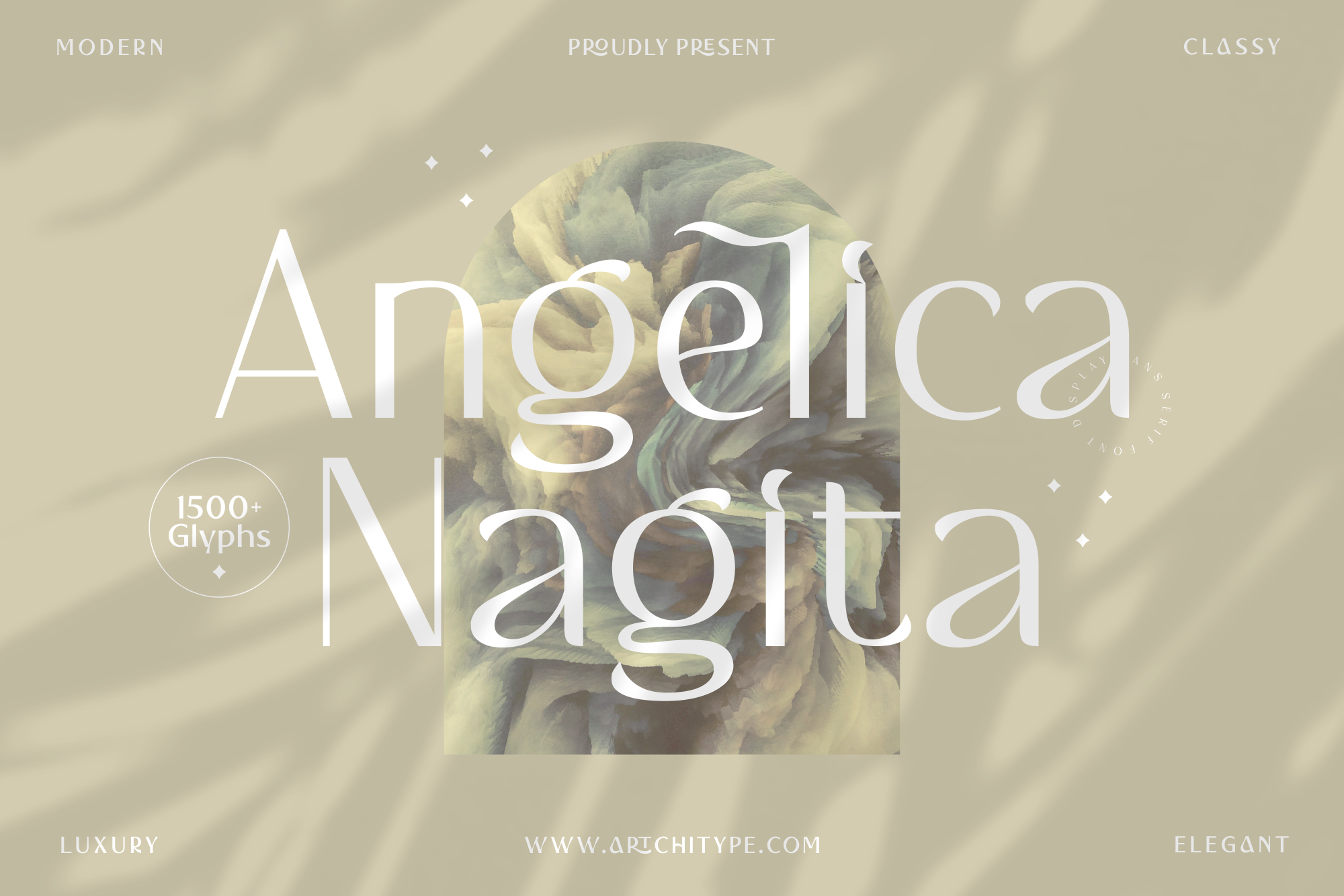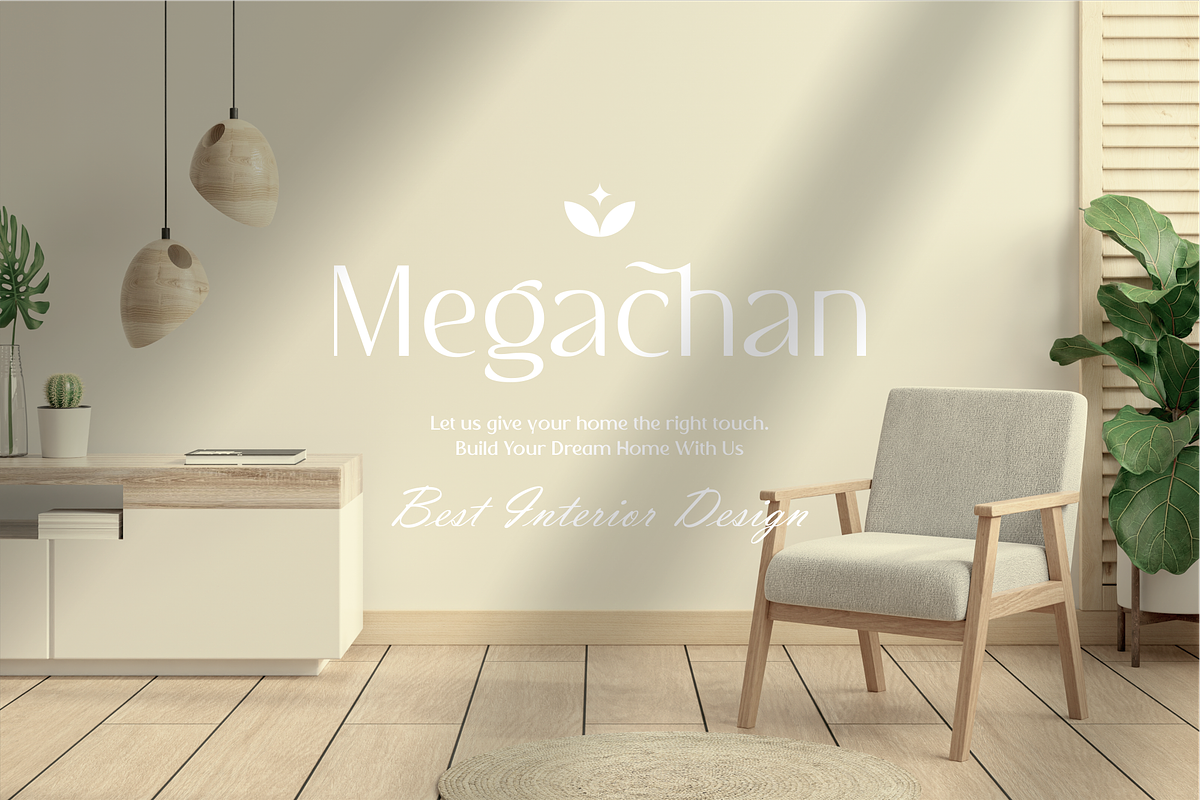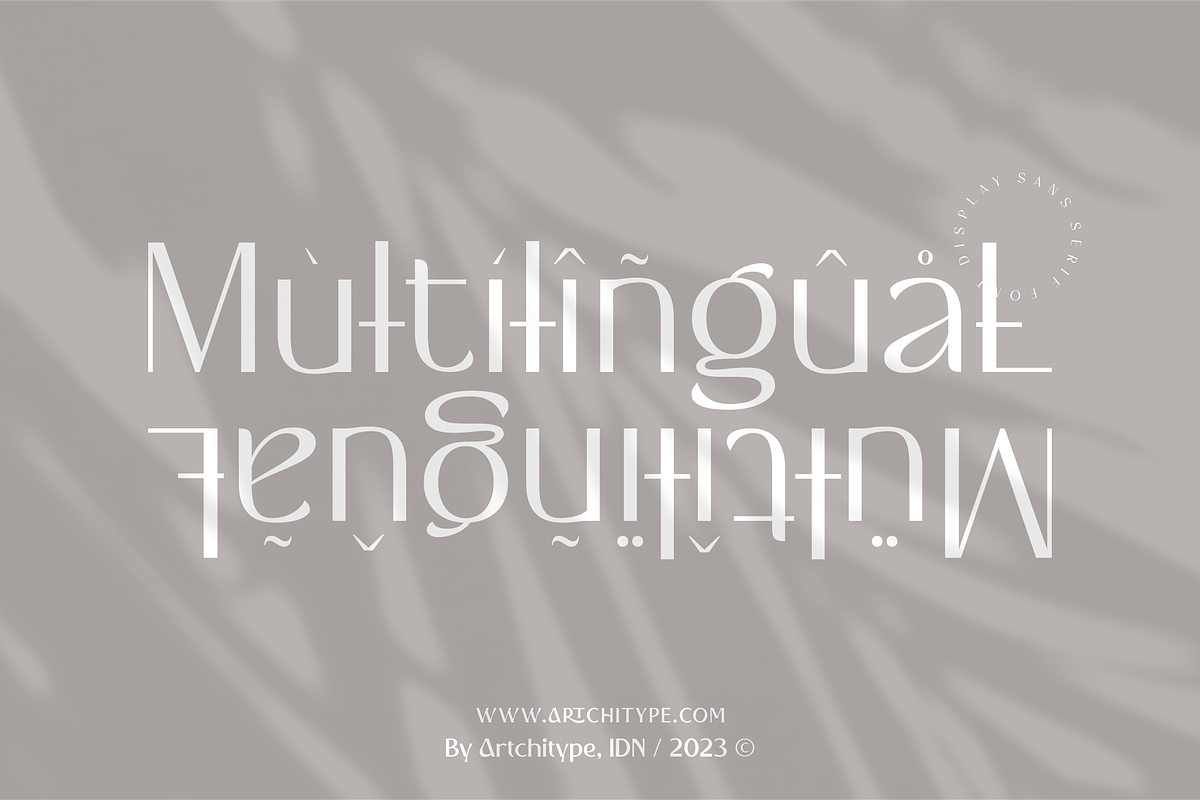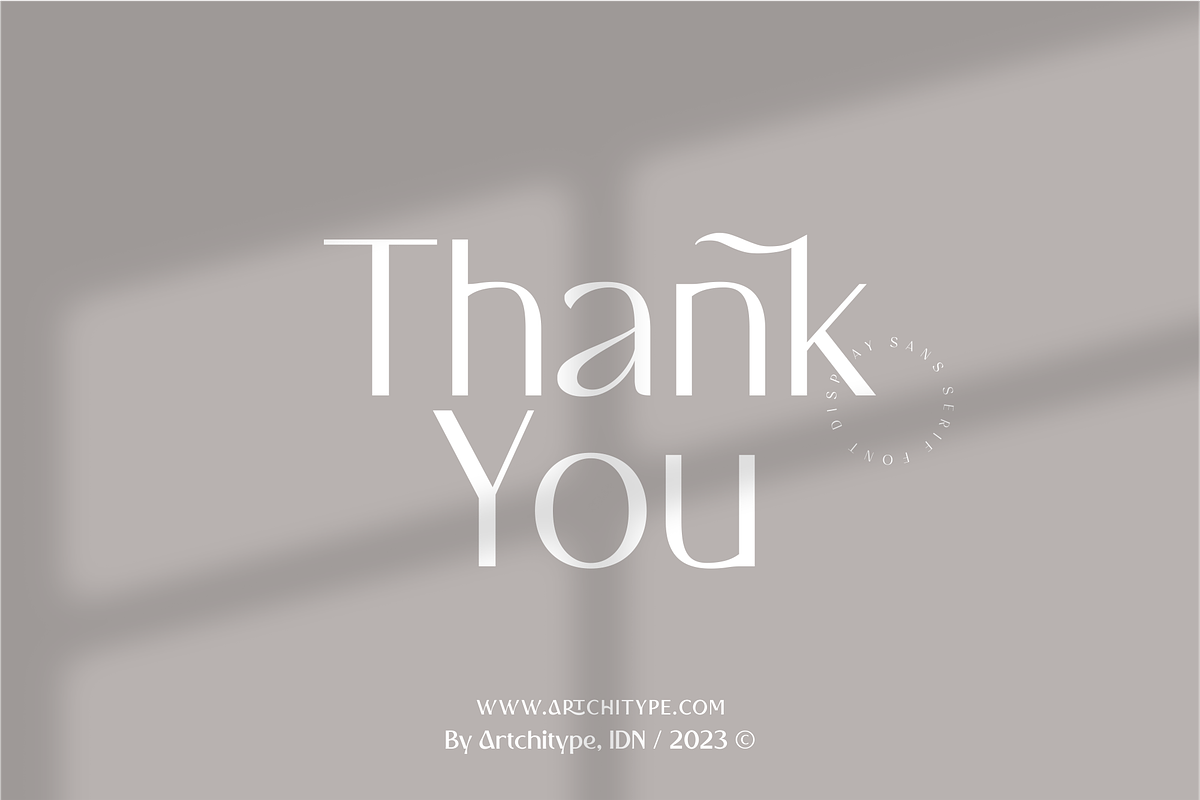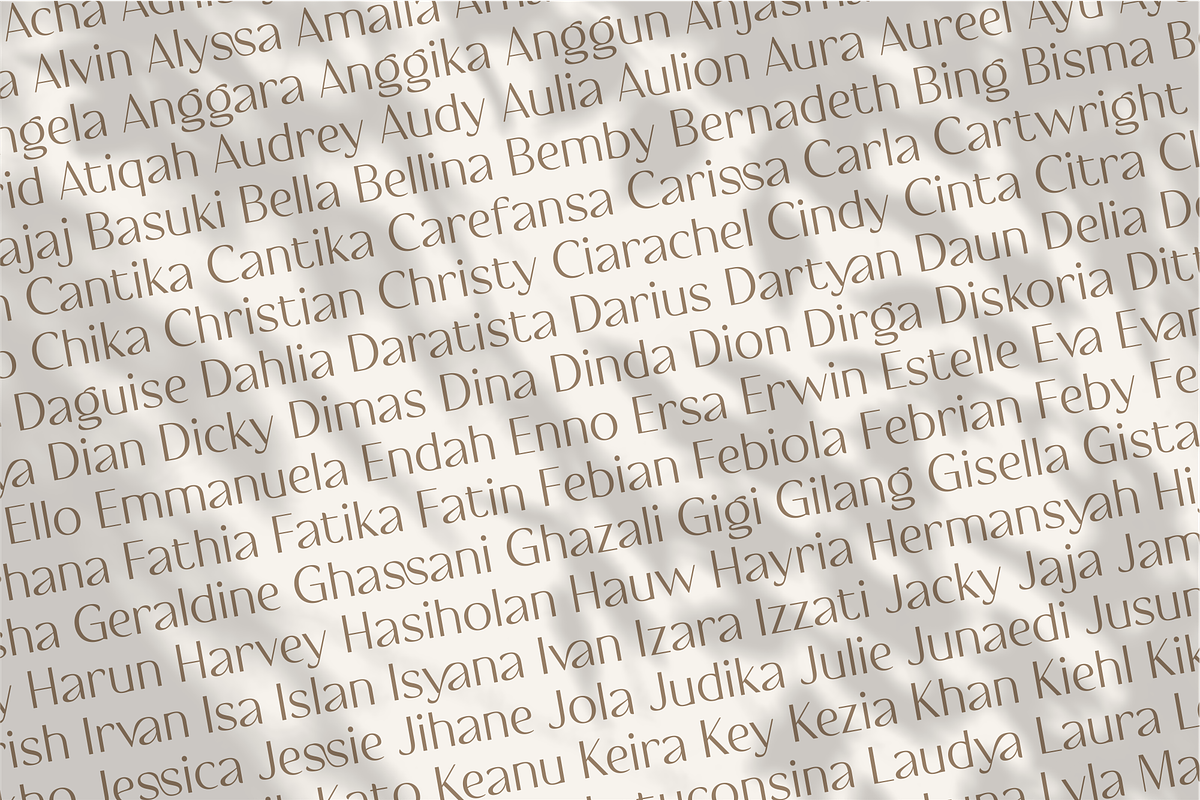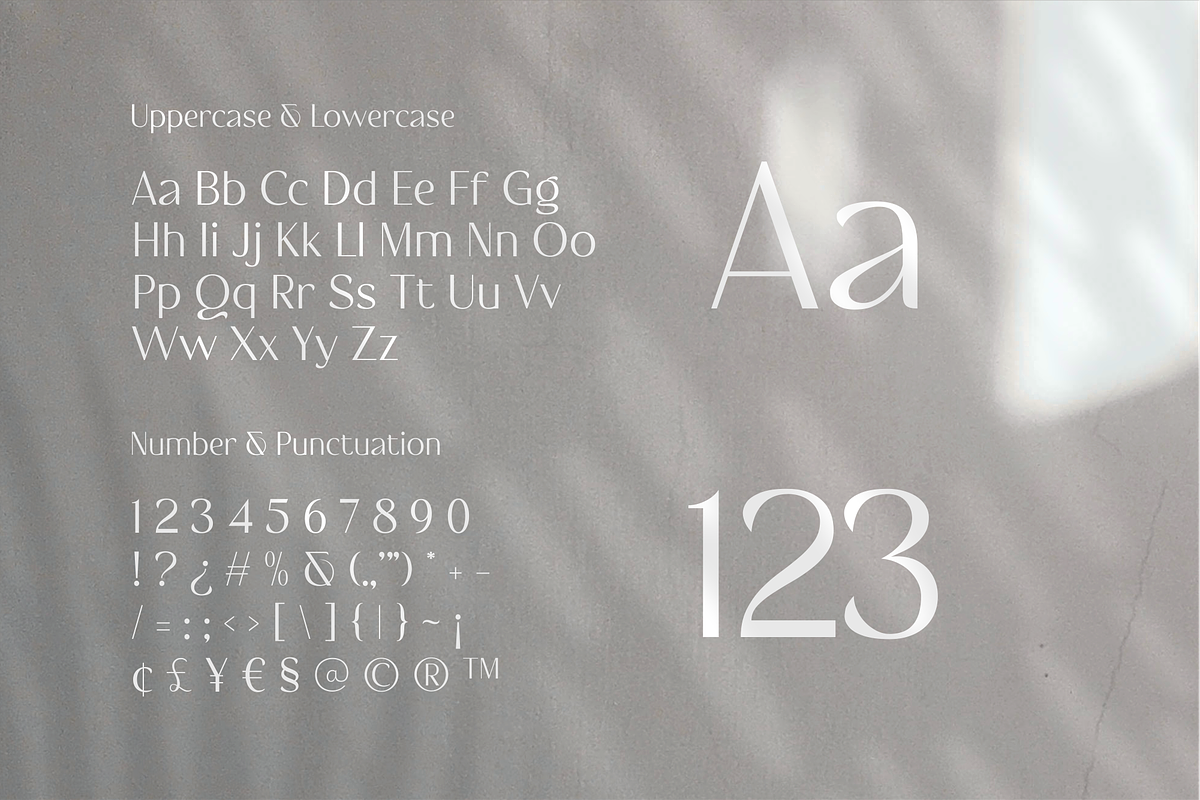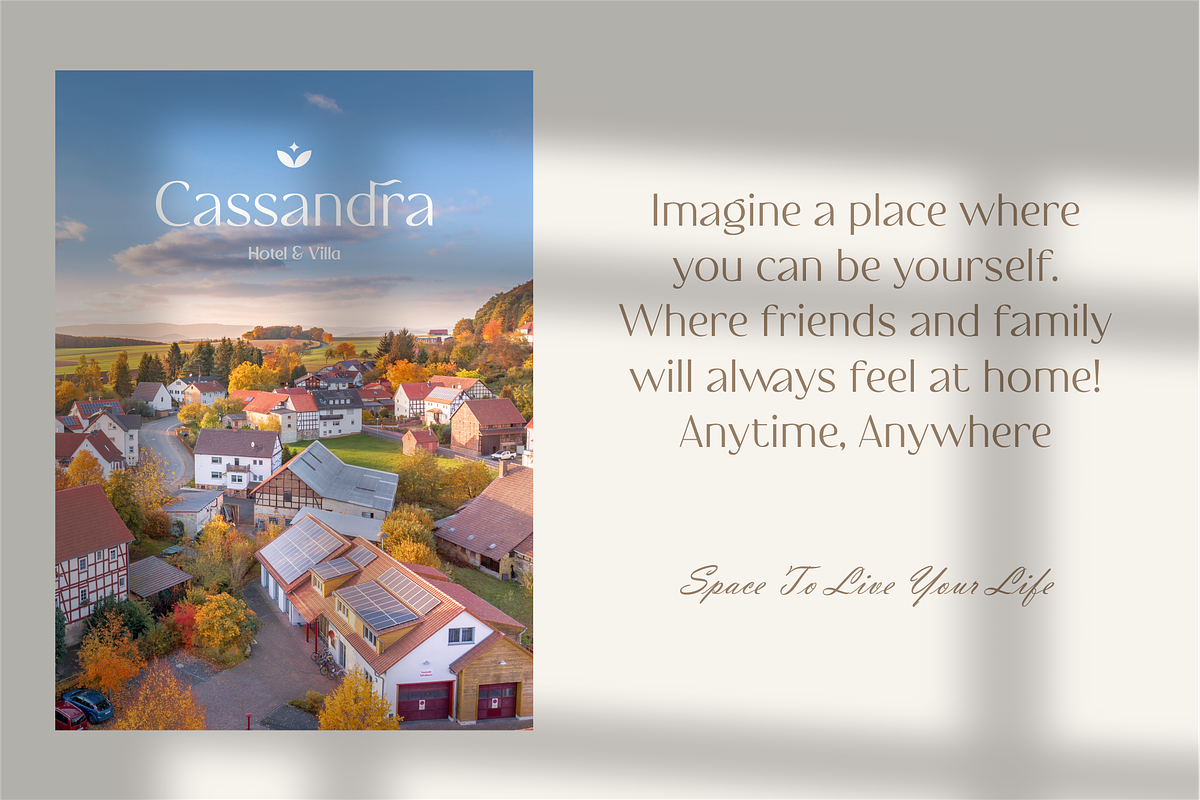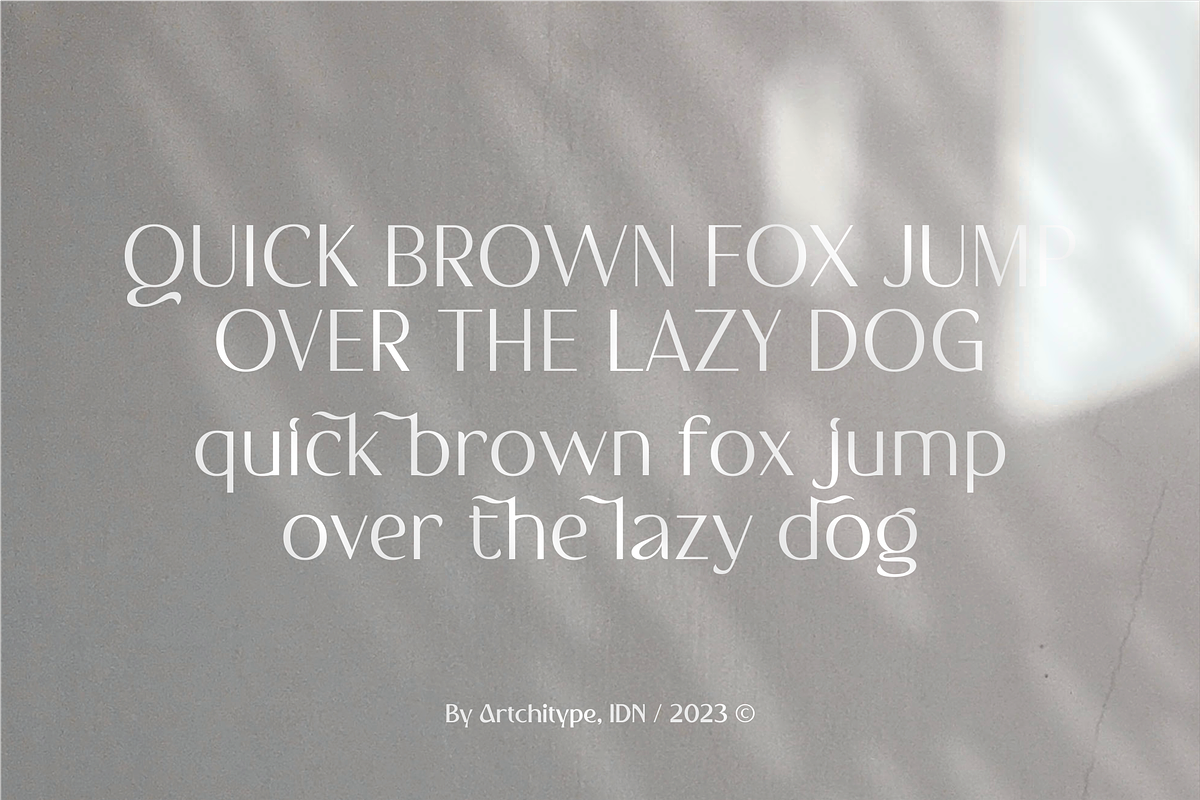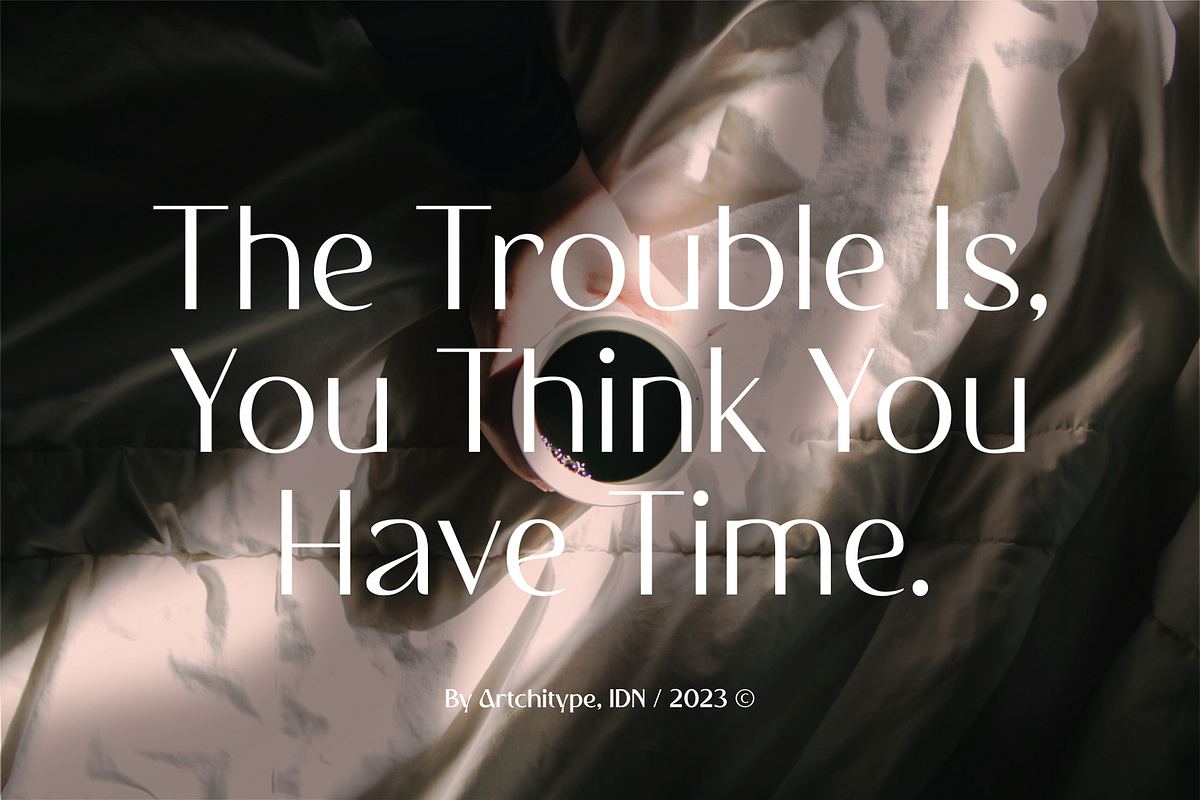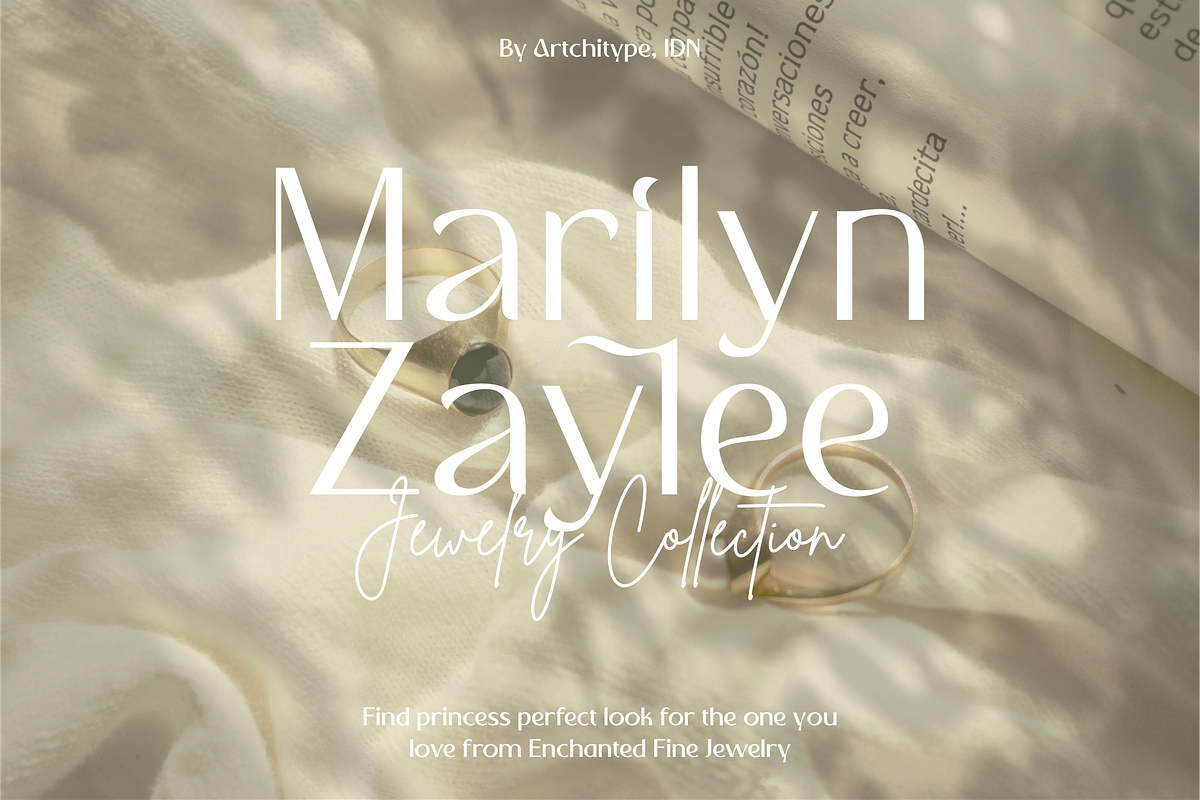
Angelica Nagita - Display Serif Font
Angelica Nagita is classy display serif font with 280+ characters. Includes uppercase, lowercase characters, multilingual, alternates and most common other characters.
Angelica Nagita is perfect for logos, social media posts, product packaging, product designs, and other projects.